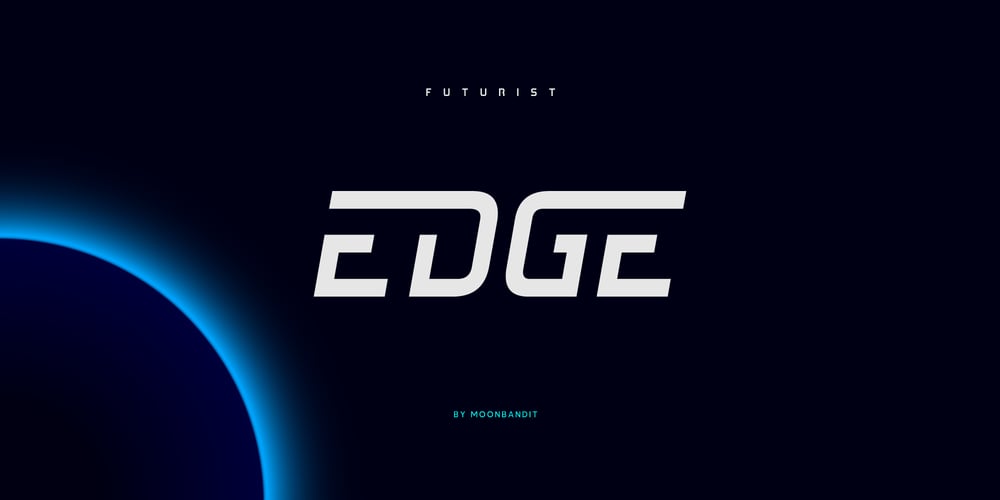
MBF Futurist Edge
MBF Futurist Edge font
MBF Futurist Edge Font Family was designed by Bramaji Dipa Manggala and published by Moonbandit. MBF Futurist Edge contains 2 styles and family package options. Moonbandit presents a powerful technology scifi theme typeface, modern, clean, strong and sleek. Perfect for your modern futuristic projects.opentype features: kerning ligature alternate multilingual